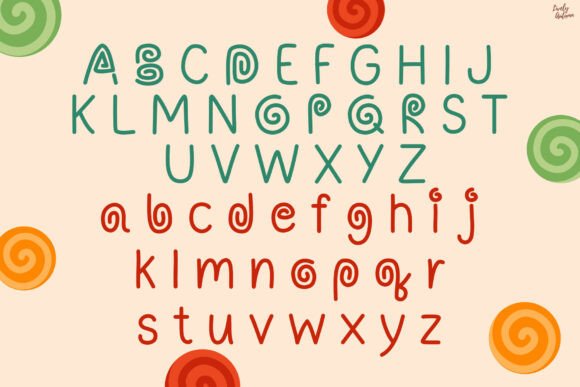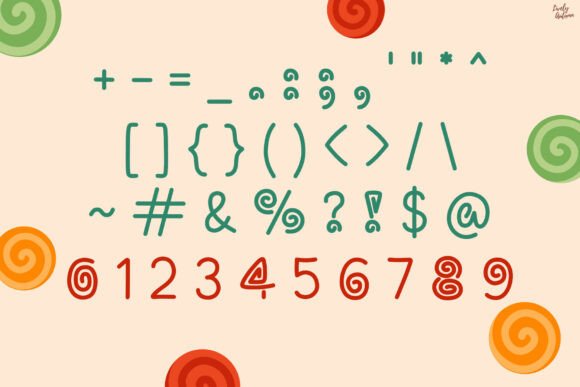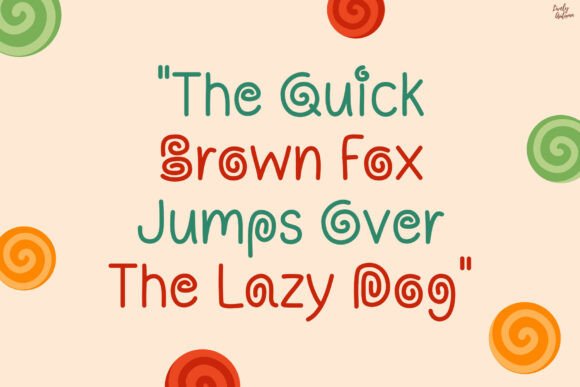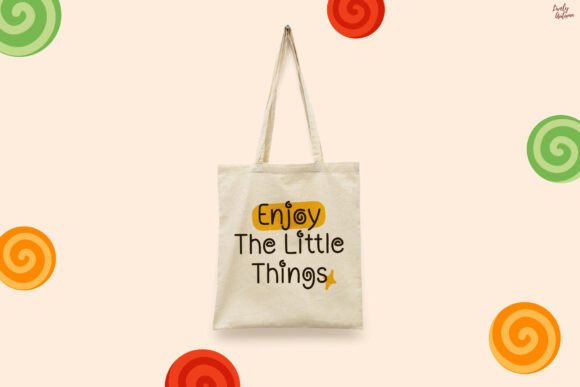
Candy Coated Typography: Introducing Candy Roll Font
Remember the thrill of unwrapping a lollipop on a summer day, watching the colorful swirls unfurl like a tiny work of art? That’s the magic we’ve captured in the Candy Roll Font, a whimsical display font that’s sure to put a smile on your face. Inspired by the carefree joy of childhood treats, this hand-drawn typeface is perfect for designers looking to add a playful touch to their projects.
Whether you’re creating kid-friendly branding, party invitations, or candy packaging, Candy Roll Font is the perfect addition to your typography toolbox. With its quirky curls and smooth rounded lines, this font brings instant charm to any design. Available in OTF & TTF formats, it’s easy to use across platforms, making it a valuable resource for designers looking to elevate their work.
- Font Family: Candy Roll Font is a unique, hand-drawn font designed to resemble candy and sweets.
- Character Set: The font includes a wide range of characters, including uppercase and lowercase letters, numbers, and special characters, making it suitable for various design needs.
- Unique Characteristics: Candy Roll Font features a playful, whimsical design with bold lines, rounded edges, and vibrant colors, making it perfect for adding a touch of fun and whimsy to designs.
Candy Roll Font Review
I’ve had the chance to play around with the Candy Roll Font, and here’s my honest take.
- The font’s playful and whimsical nature makes it perfect for creating a fun and youthful vibe.
- The various weights and styles available give you plenty of options to experiment with.
- The font’s compatibility with a range of devices and platforms is a major plus.
- The font may not be suitable for more formal or professional projects, as it can come across as too casual.
- The font’s design may not be as sophisticated or detailed as some other fonts in its category.
Overall, the Candy Roll Font is a solid choice for projects that require a lighthearted and playful touch. While it may not be the best fit for every project, it’s definitely worth considering for those looking for a fun and youthful vibe. With a little creativity, you can use this font to create some really unique and engaging designs.
To get the most out of Candy Roll Font, try using it in combination with bright, bold colors and playful graphics. This font is perfect for creating eye-catching titles, headings, and captions for your designs.
Candy Roll Font is commonly used for:
- Food and dessert branding and marketing materials
- Playful and whimsical graphics and illustrations